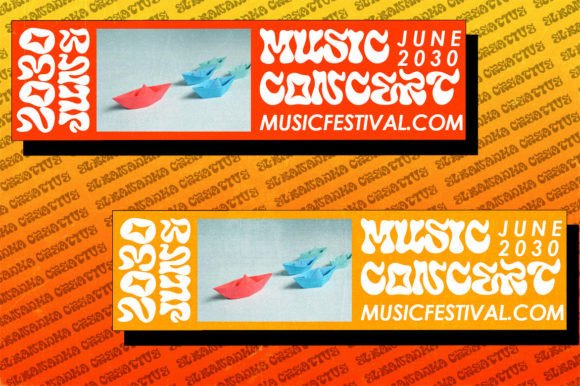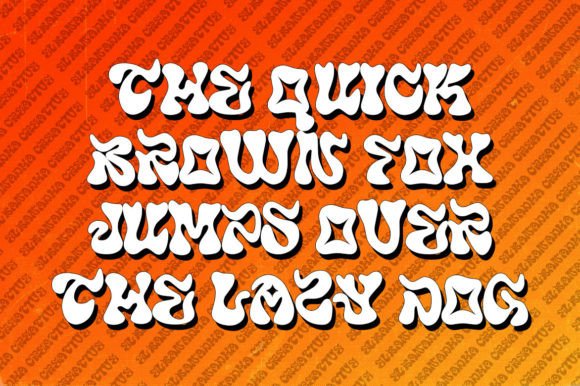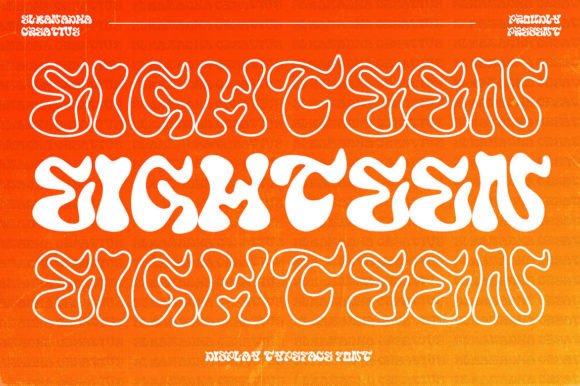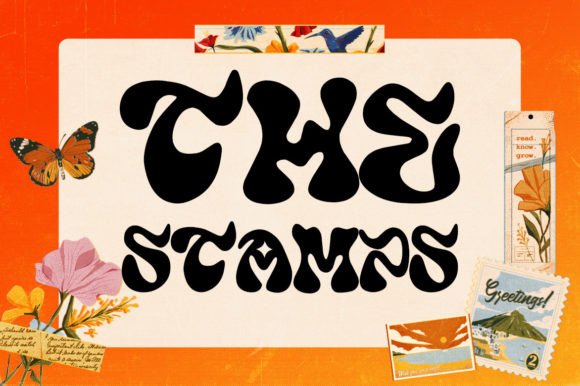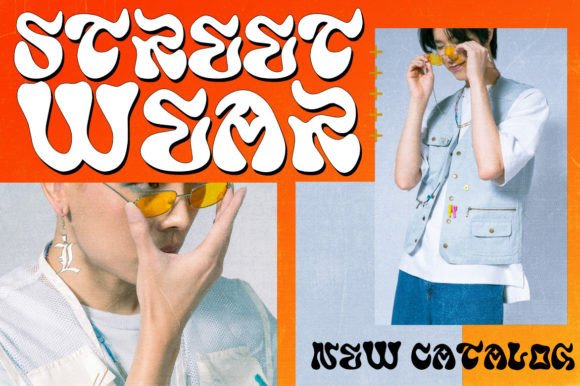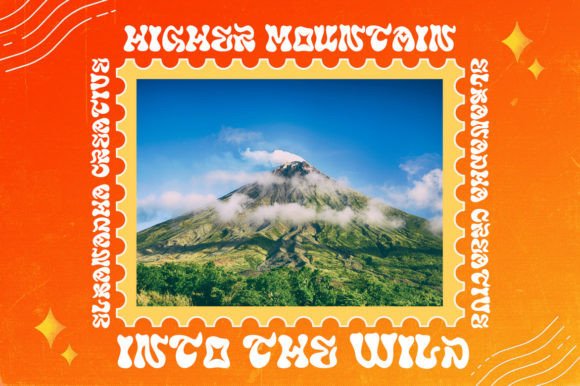
Eighteen Font: Elevate Your Designs with Elegance and Sophistication
In the world of design, typography plays a crucial role in conveying messages, evoking emotions, and creating lasting impressions. When it comes to selecting the perfect font for your project, the options can be overwhelming. However, if you’re looking for a typeface that exudes elegance, sophistication, and versatility, look no further than Eighteen Font. In this article, we’ll delve into the world of Eighteen Font, exploring its features, benefits, and uses, making it an essential read for designers and crafters alike.
What is Eighteen Font?
Eighteen Font, also known as EIGHTEEN – DISPLAY TYPEFACE FONT, is a stunning display typeface designed to add a touch of luxury and refinement to any project. Its unique design makes it suitable for a wide range of applications, from logos and branding projects to homeware designs, product packaging, and more.
Key Features of Eighteen Font
- Elegant Design: Eighteen Font boasts an elegant design that instantly elevates your projects, making them stand out from the crowd.
- Versatility: This font is incredibly versatile, suitable for various projects, including logos, branding projects, homeware designs, product packaging, mugs, quotes, posters, shopping bags, t-shirts, book covers, name cards, invitation cards, greeting cards, labels, photography, watermark, and special events.
- High-Quality: Eighteen Font is a high-quality typeface, ensuring crisp and clear rendering, even at large sizes.
Benefits of Using Eighteen Font
So, why should you choose Eighteen Font for your next project? Here are just a few benefits:
- Instant Recognition: Eighteen Font’s unique design ensures instant recognition, helping your brand or project stand out in a crowded market.
- Professional Look: This font gives your project a professional, polished look, perfect for businesses, designers, and crafters seeking to create a lasting impression.
- Time-Saving: With Eighteen Font, you can save time and effort, as its versatility means you can use it across multiple projects, reducing the need for multiple font changes.
Uses of Eighteen Font
Eighteen Font’s versatility is one of its most significant advantages. Here are some of the many uses of this incredible typeface:
- Logos and Branding Projects: Create a lasting impression with a custom logo or branding project that showcases your business’s personality and values.
- Homeware Designs: Add a touch of elegance to your homeware designs, from stationery to ceramics, with Eighteen Font’s sophisticated style.
- Product Packaging: Make your product packaging stand out on store shelves with Eighteen Font’s eye-catching design.
- Mugs, T-Shirts, and More: Create stunning apparel and accessories, such as mugs, t-shirts, and tote bags, with Eighteen Font’s unique style.
Tips for Using Eighteen Font
To get the most out of Eighteen Font, here are a few tips:
- Experiment with Sizes: Eighteen Font looks great at various sizes, so don’t be afraid to experiment and find the perfect fit for your project.
- Pair with Other Fonts: Combine Eighteen Font with other fonts to create a unique and visually appealing typography style.
- Use in Digital and Print: Eighteen Font is suitable for both digital and print projects, making it a versatile addition to your font library.
Eighteen Font is an exceptional display typeface that offers elegance, sophistication, and versatility. With its wide range of applications, from logos and branding projects to homeware designs and product packaging, this font is a valuable asset for designers and crafters. Whether you’re looking to create a lasting impression, add a touch of luxury, or simply elevate your designs, Eighteen Font is the perfect choice. So why wait? Discover the world of Eighteen Font today and take your designs to the next level!